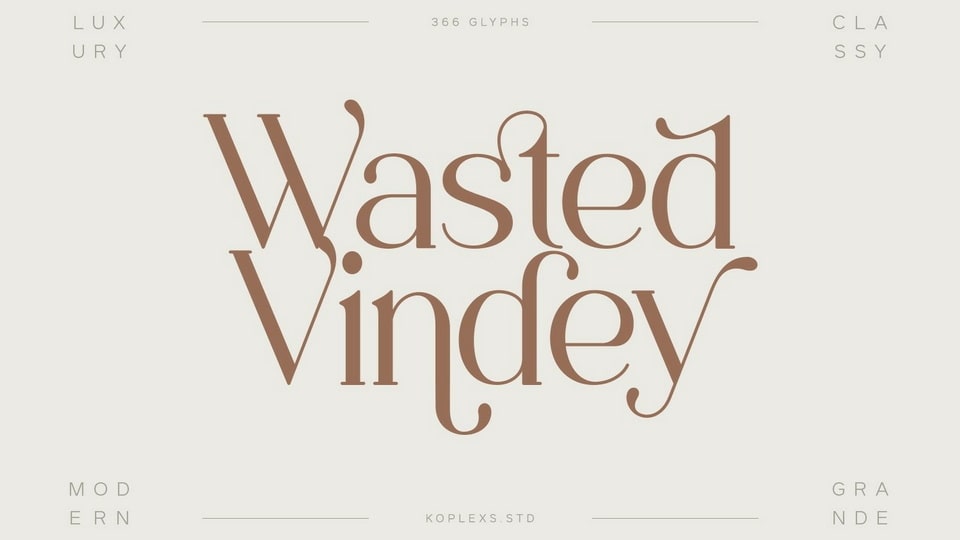
Wasted Vindey Font › Fontesk – Download Grátis
Download Wasted Vindey font, a classy serif typeface, giving you a unique look for any branding or design need. Wasted Vindey font has a blend of beauty and classy feel, which has a variety of uses but is primarily intended for logos, book covers, perfumes, fashion magazines, or invitations.
Designer: Koplexs Studio